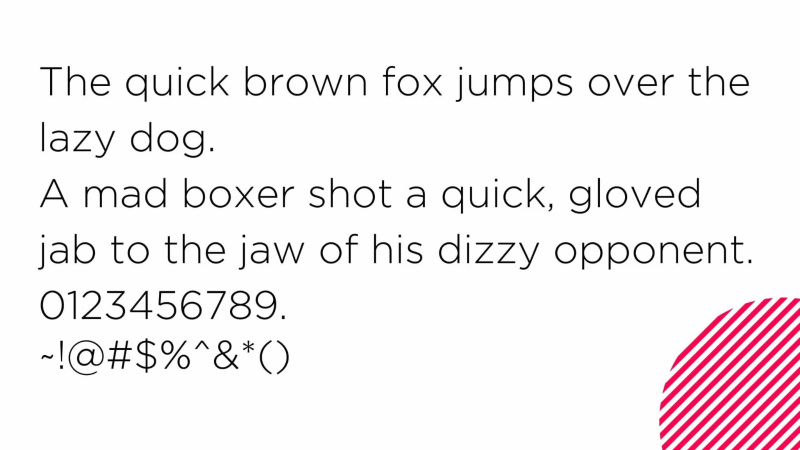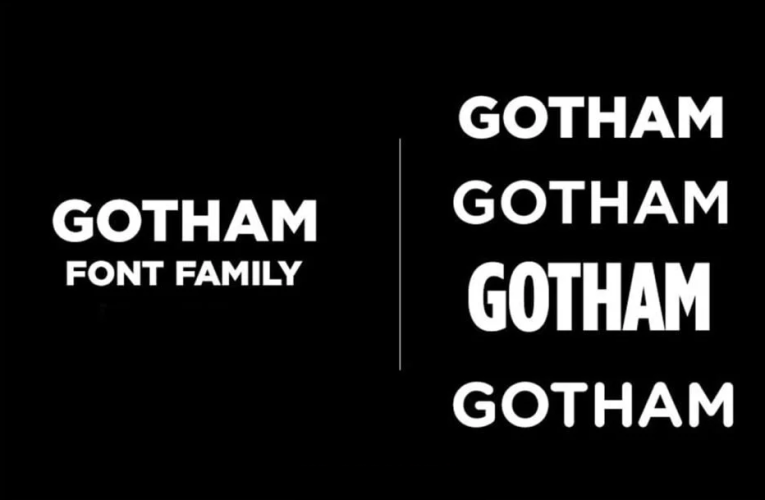
Gotham Font Family
Gotham is a modern and sans serif typeface created by Tobias Frere Jones in 2000. Borrowing its design from architectural signs noticed in New York City, it become popular very soon because of its clear and business-like appearance. Originally, the typeface was developed for GQ magazine which wanted a branded, beautiful but manly typeface for their magazine. It has therefore found its way into different areas of application including corporate identification, political campaigns for instance, Barack Obama’s 2008 presidency campaign.
The Gotham font is contemporary, clean, and highly professional and, therefore, appropriate for all brands that wish to communicate power and minimalism. Because of its readability and its lack of graphic elements, it can be used in any number of different projects – Web design as well as print.
When we mention the Gotham font family, we mean a large group of variants that exists beyond basic Gotham and Light type. The family includes thin to ultra weight, and available in both Roman and italic typefaces. Such flexibility enables designers to keep a consistent identity that runs throughout the different media and forms.
Some of the popular variations include:
With such a diverse range, the Gotham family font is an excellent choice for everything from headings and logos to body text.
Gotham family font has been used in branding campaigns, corporate logos and even in signage for government. The font became famous when Barack Obama used it in its 2008 presidential campaign branding. With modernity and trustworthiness, the typeface slipped perfectly into a campaign based on hope and change.
It is also in use for major companies such as Coca-Cola, Subaru, and Tiffany & Co. to really make a great and professional image. Versatile, it works both for luxury and mass market context, which makes it a favourite of top tier designers.
Professional Aesthetic: Gotham is full of authority which makes it the best for business or political campaigns.
Versatility: Because it comes in a very wide range of weights and styles, you can use it for everything from headings to body text.
Legibility: Clean, geometric design assures that this is easy to read in print and digital forms.
Brand Consistency: In addition to having many variations within the Gotham family of fonts, you can keep design visually interesting, but maintain brand consistency.
Where Gotham Font Family works best
Headlines and titles
Gotham Font Family has enough character to carry a headline on its own; set it large and keep the supporting text plain.
Brand and product names
Short strings are where this typeface is strongest — a name, a label, a cover line.
Social and video graphics
Set Gotham Font Family over a flat colour or a quiet photograph so the letterforms stay the focus.